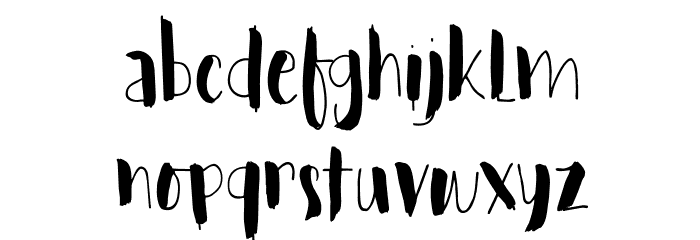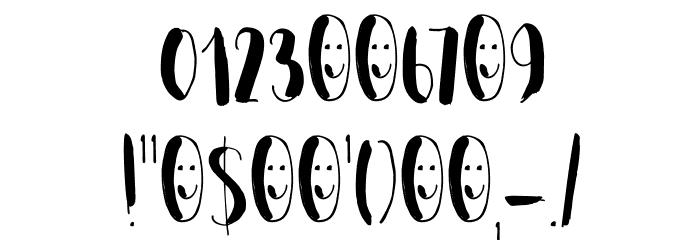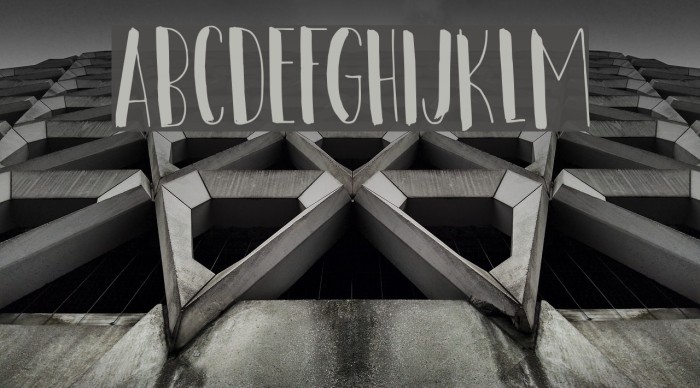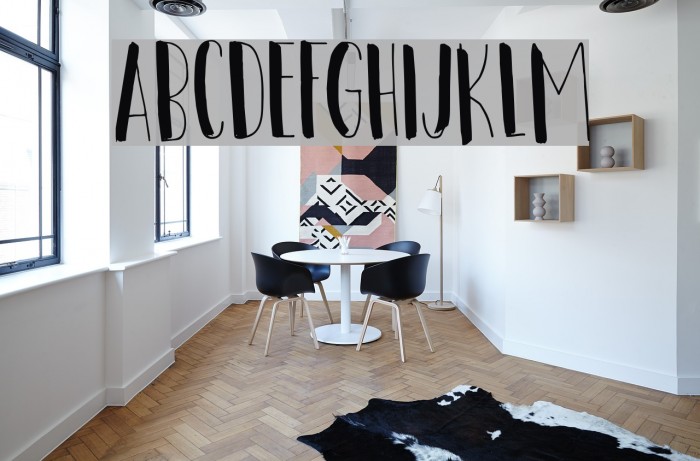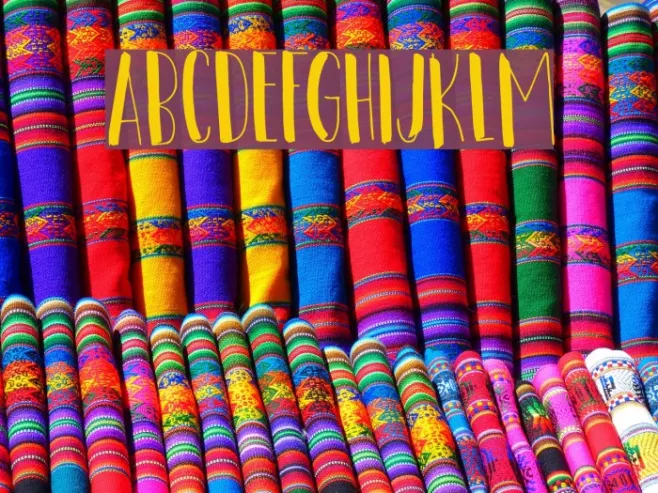
Woebegone DEMO Regular Font
This font features a playful and whimsical style, characterized by its uneven and hand-drawn appearance. The letters have a casual, artistic flair, with varying stroke widths that add a dynamic and lively feel. The uppercase letters are bold and slightly irregular, while the lowercase letters maintain a consistent, flowing script-like quality. The numbers and special characters continue this playful theme, incorporating unique elements such as smiley faces within the zeros. Overall, the font exudes a sense of fun and creativity, making it ideal for projects that aim to convey a lighthearted and informal tone.
A playful, hand-drawn font with a whimsical and artistic style.
- Proposed Projects: Great for children's books, creative posters, playful branding, and informal invitations.